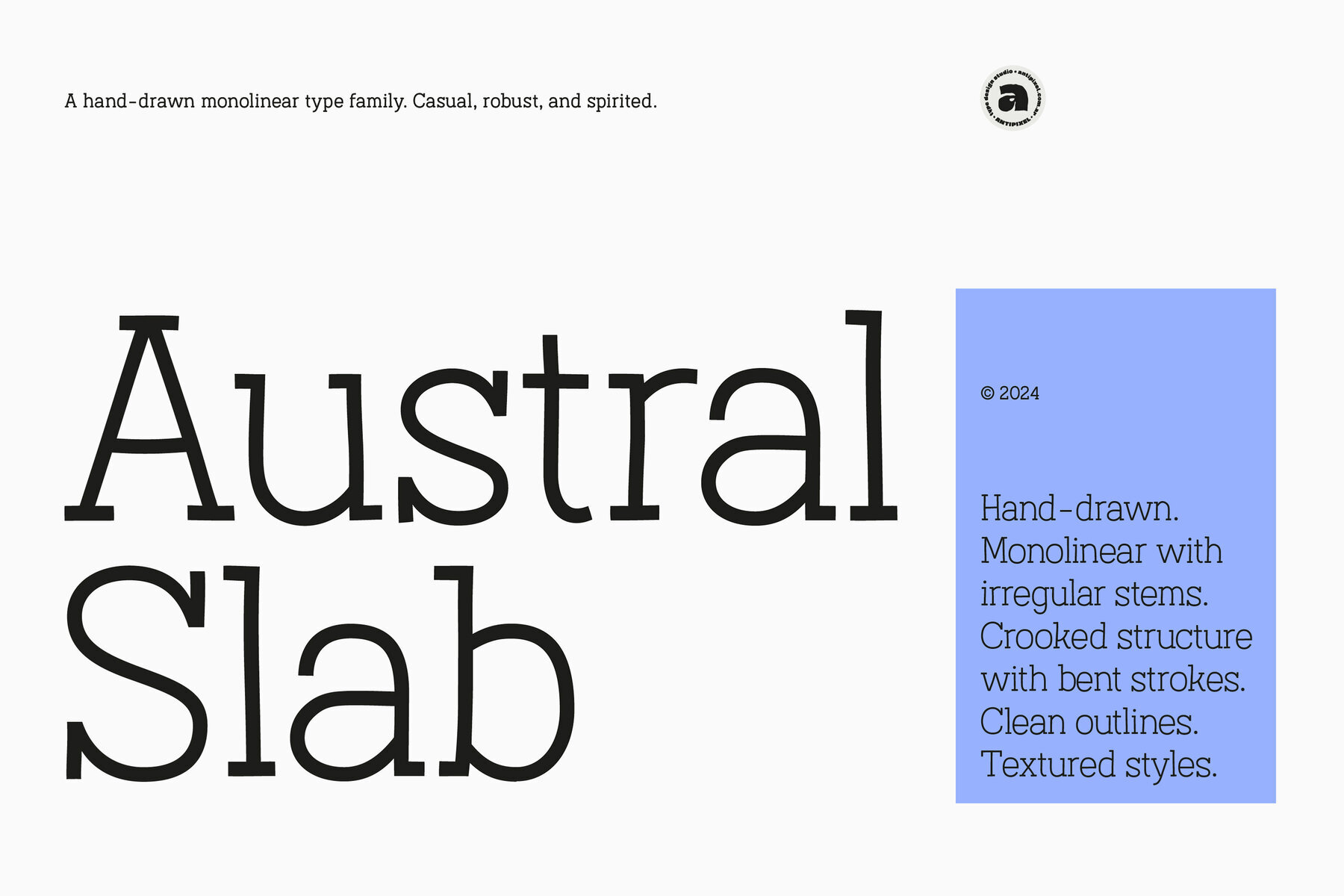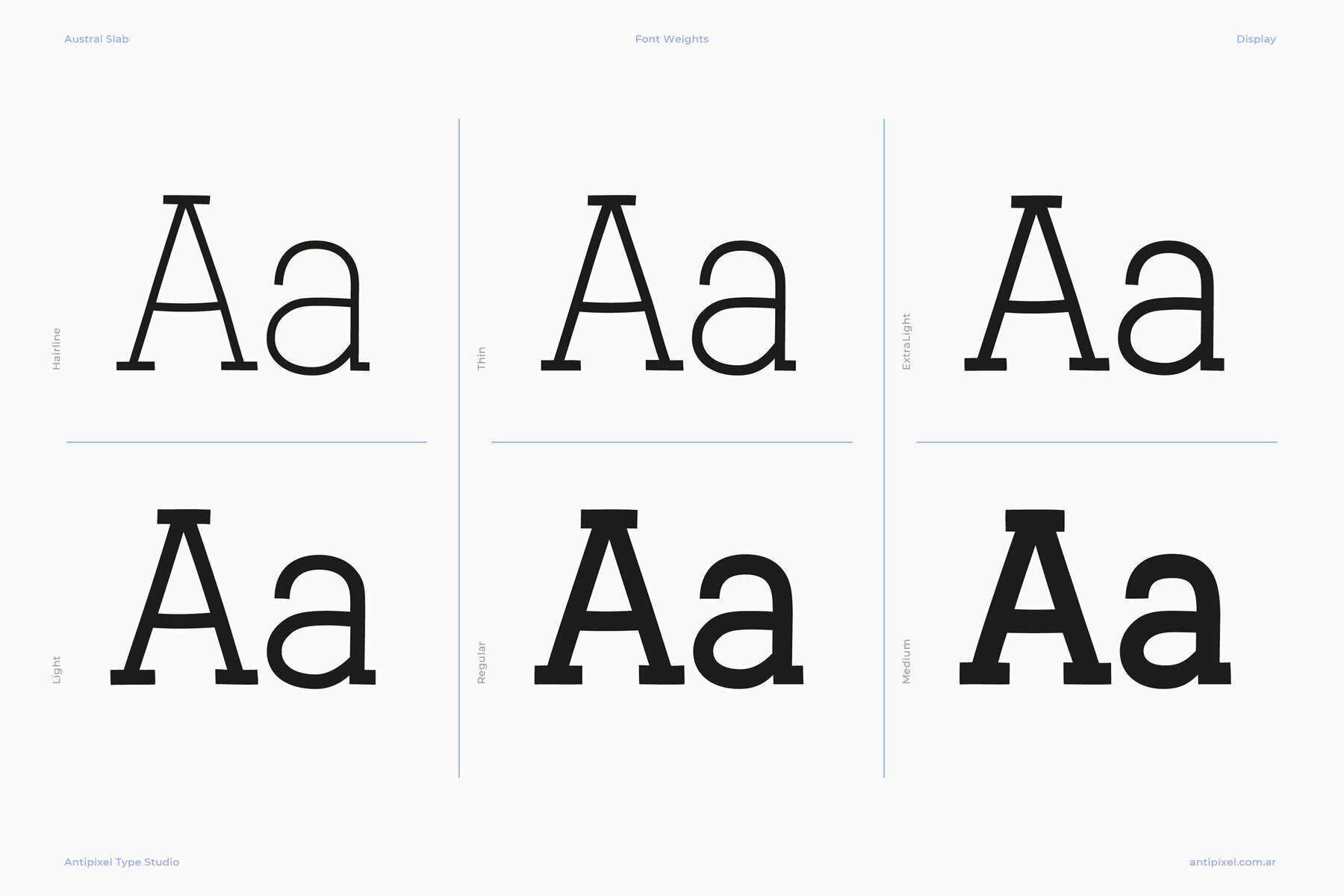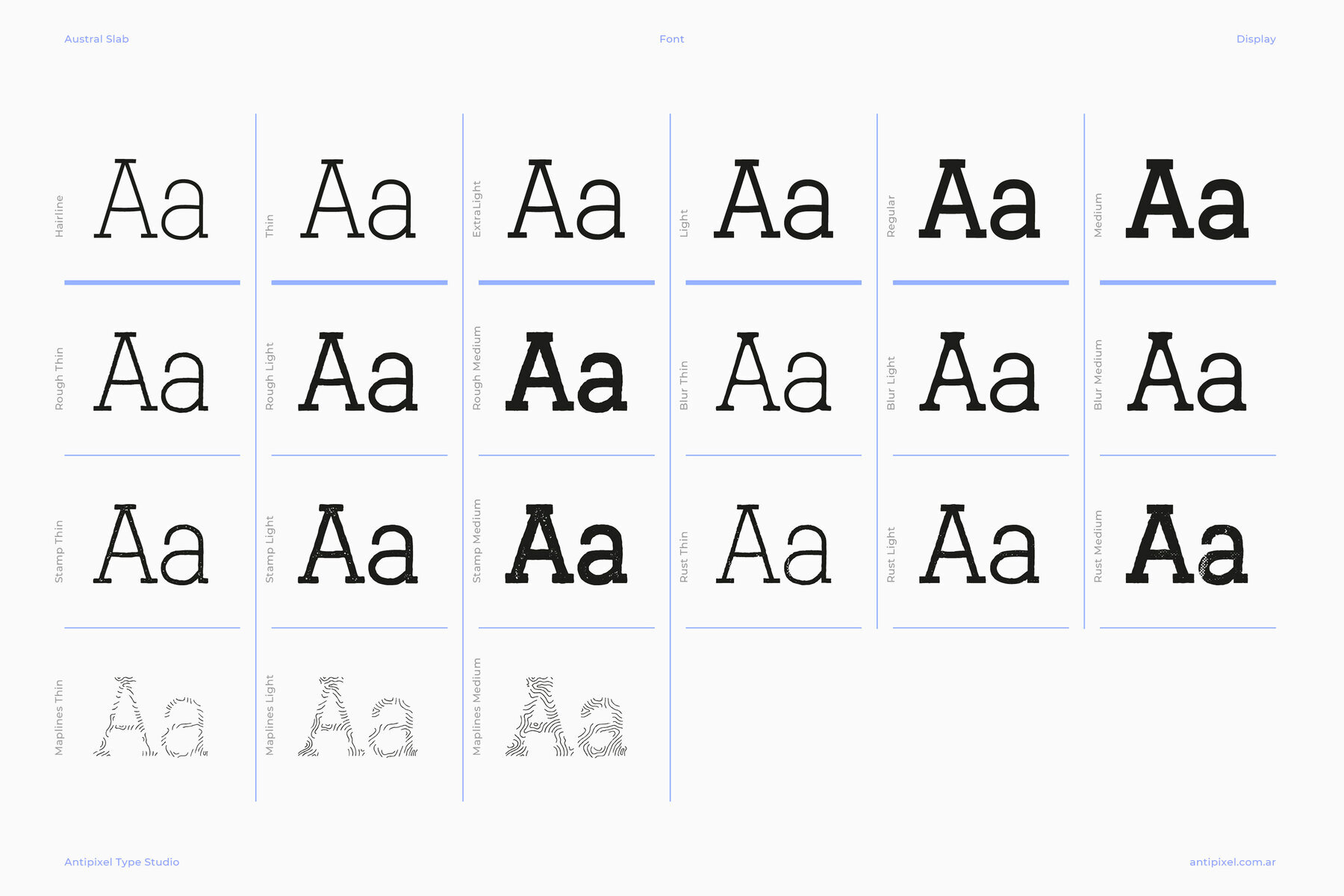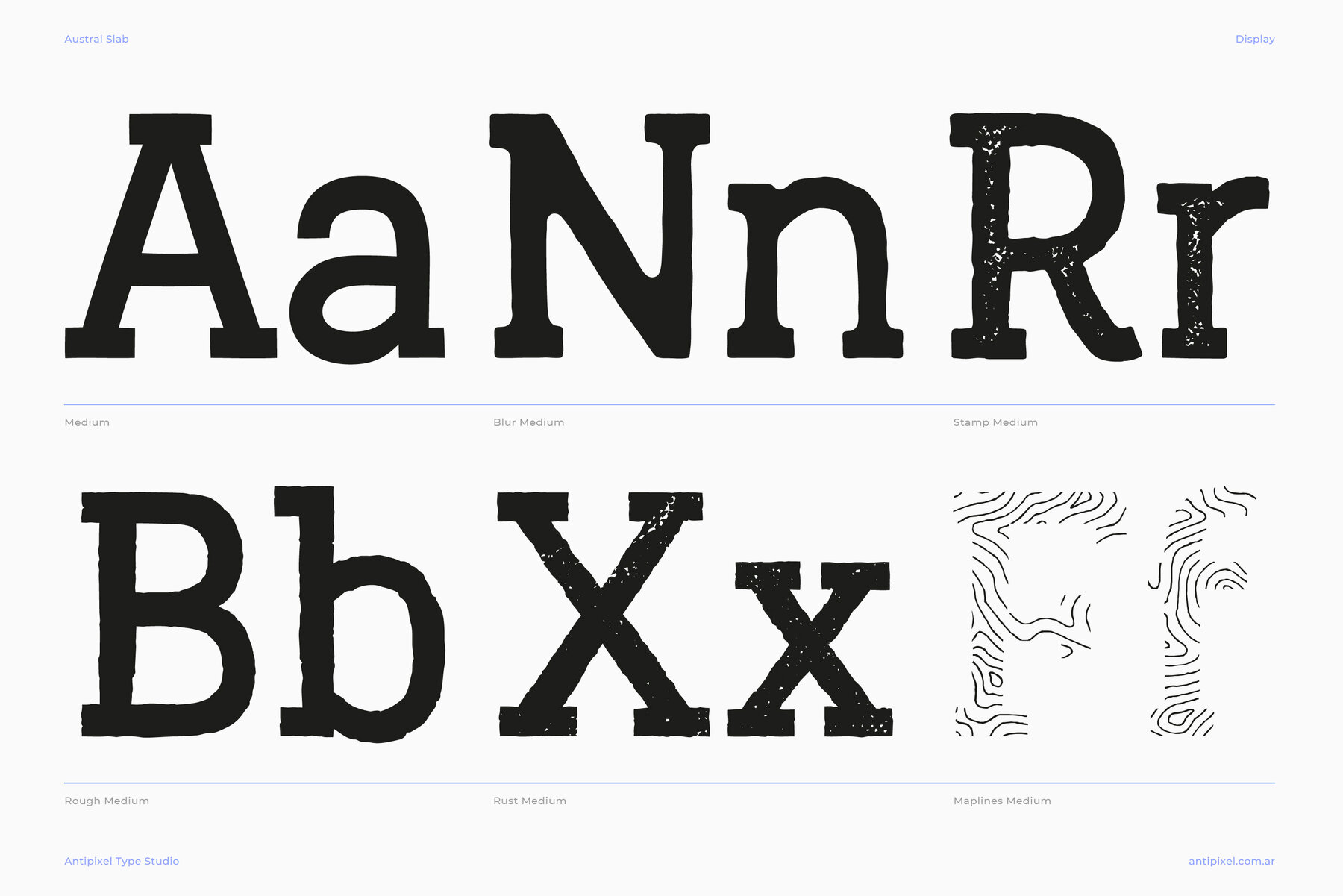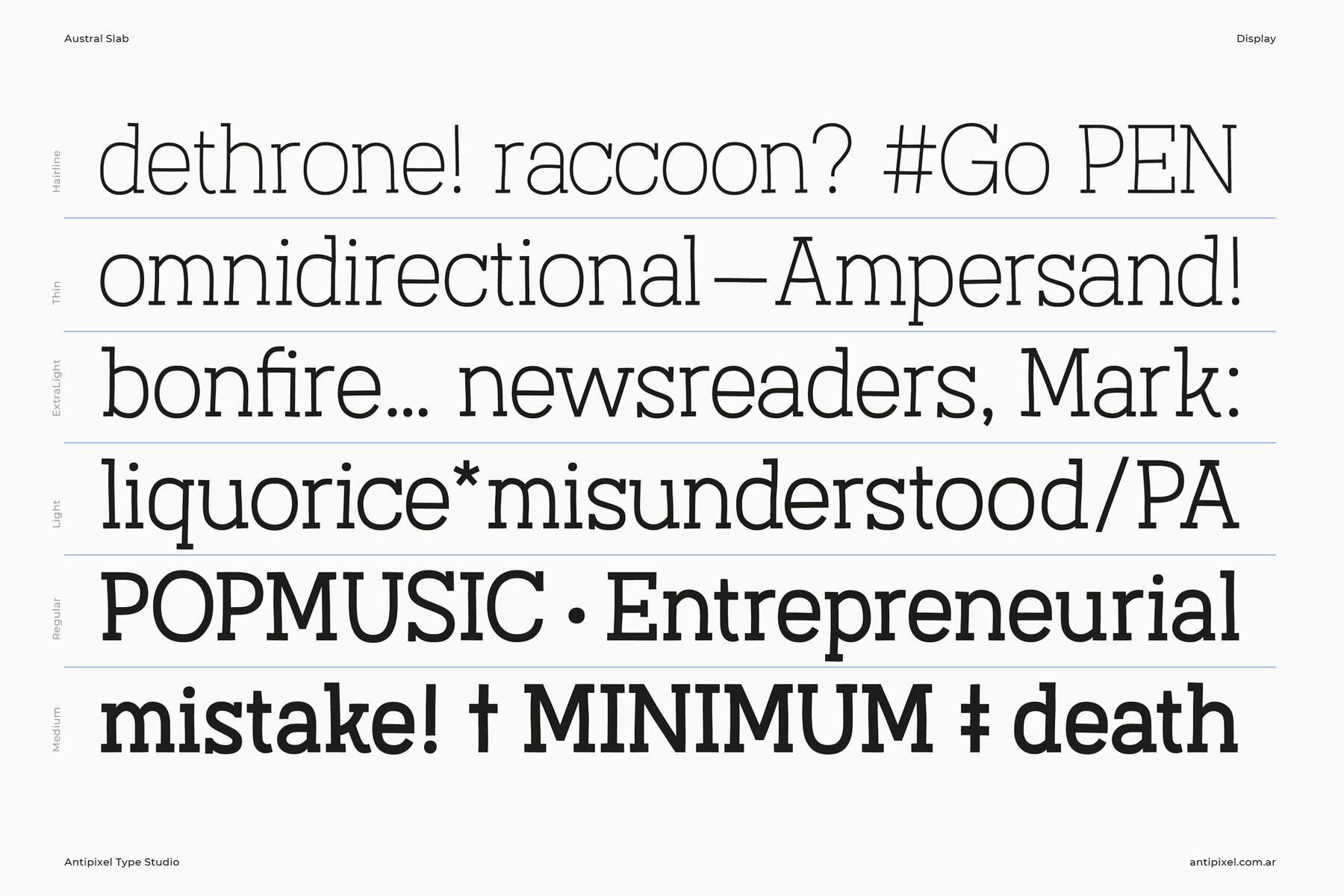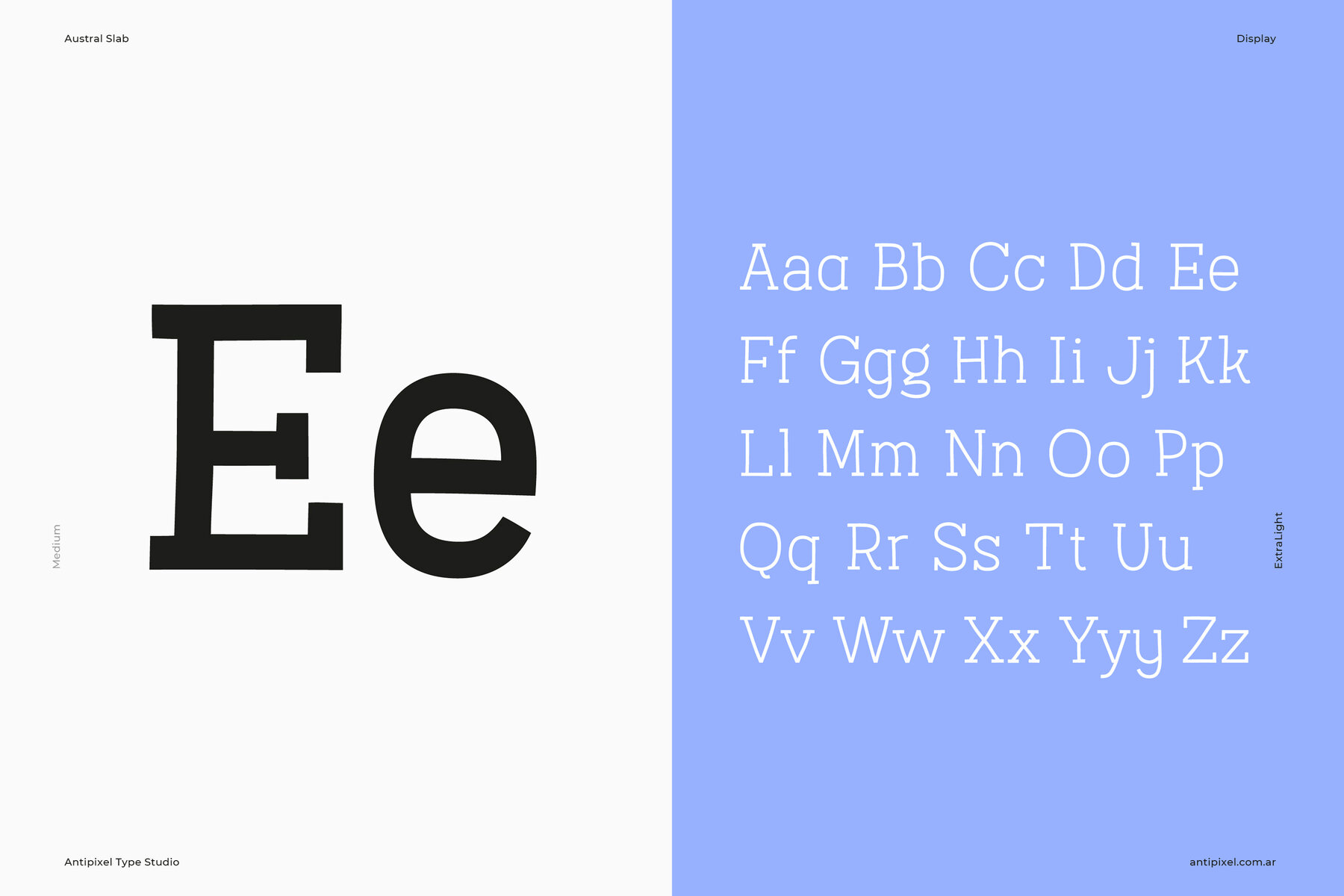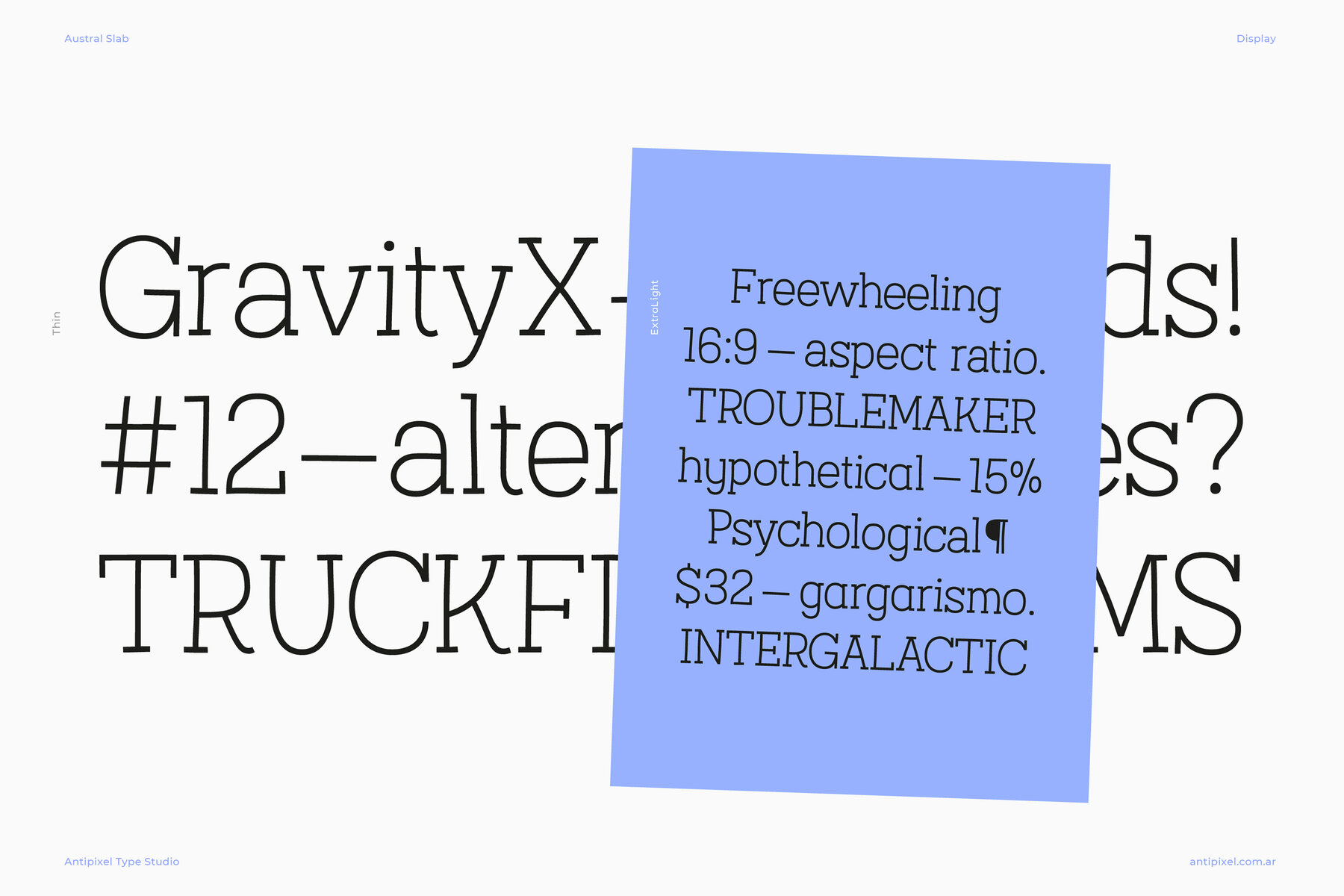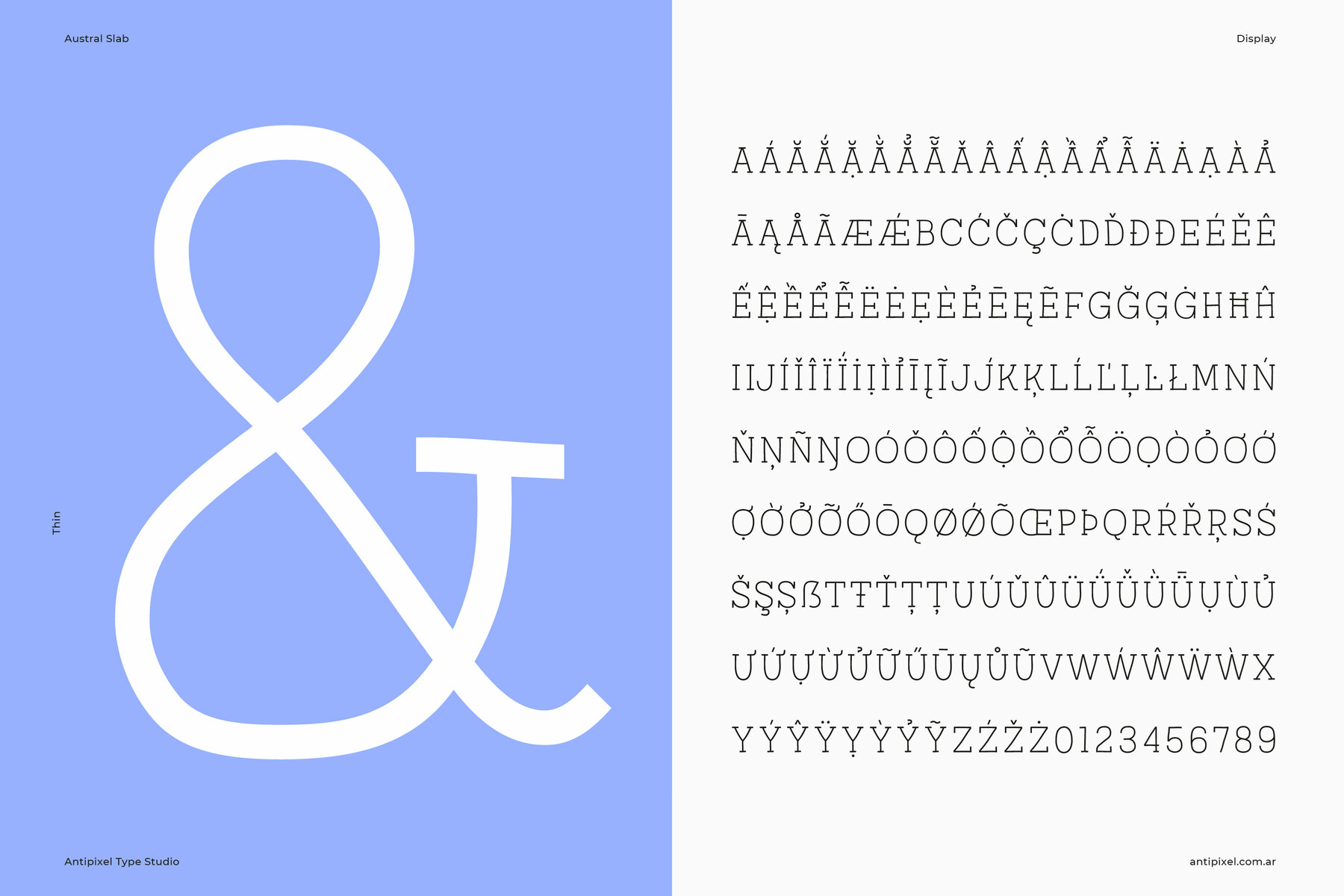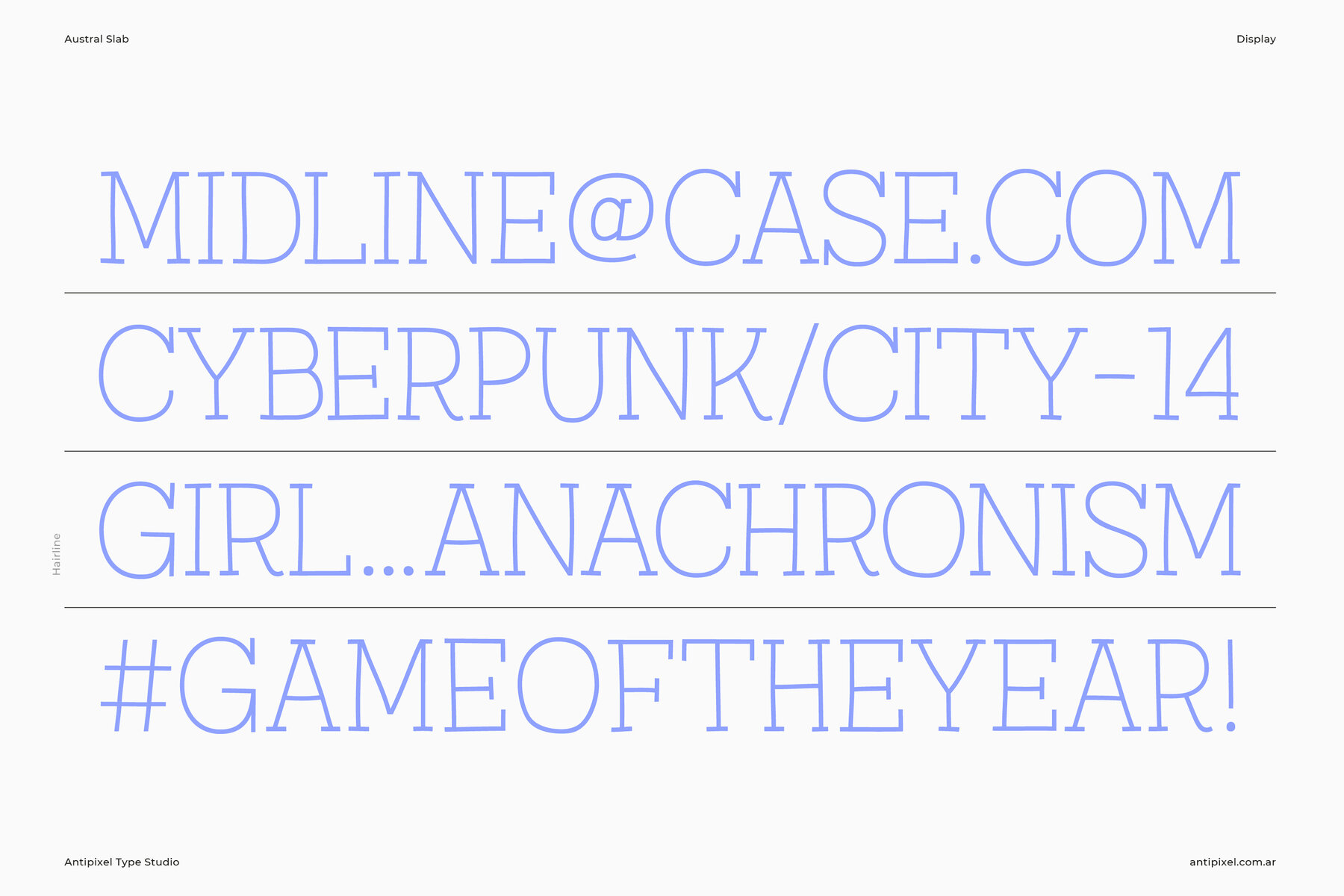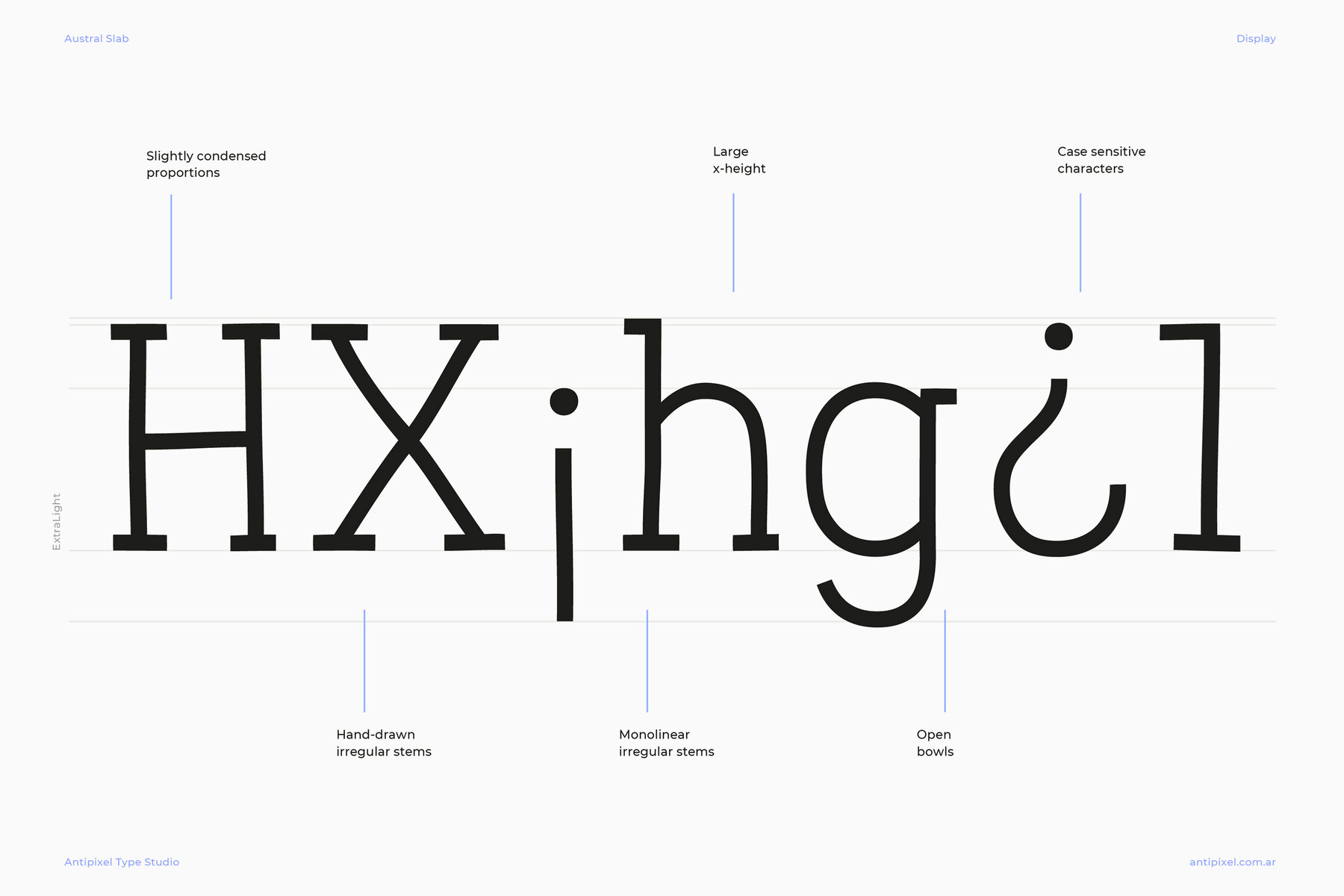
Austral Slab Font
Austral Slab is a hand-drawn layered type family. It is casual, robust, and spirited. It is monolinear in spirit, despite having irregular stems that give the fonts an eroded effect (particularly exaggerated in the Medium styles). It was originally released in 2016, and in 2024 updated with version 2.000 that includes a new weight distribution and clean no-textured fonts, major updates on glyph support, OpenType features, corrections on the design of specific characters, and more.
The clean fonts come in six weights: Hairline, Thin, ExtraLight, Light, Regular and Medium. Textured styles come in three weights, Thin, Light, and Medium, which all share the same crooked structure with bent strokes and irregular outlines.
The textures available are Blur, Rough, Rust, and Stamp, and the layered styles are Maplines and Spots. 'Blur' is a softened style with round and heavy swelling at intersections. 'Rough' has solid irregular contours. 'Rust' has a deteriorated texture over the glyphs. 'Stamp' has the appearance of a print that didn't get enough ink. 'Maplines' is uniquely filled with topographic map-like lines.
Austral Slab has three sets of alphabets that slightly differ. These sequentially alternate to avoid repeating the same textured letterforms, having a more realistic irregular result. The Contextual Alternates feature is available in all the styles of this type family.
Some Austral Slab's features are Ligatures, Discretionary Ligatures, Stylistic Alternates, numerators, fractions, arrows, and a glyph coverage that ensures extended language support.
(1) New weight distribution and clean no-textured fonts: The new clean fonts come in six weights: Hairline, Thin, ExtraLight, Light, Regular and Medium.
(2) New weight distribution: the former Regular style is now called Medium.
(3) The textures available are Rough, Blur, Stamp, Rust and Maplines: texture Spots is no longer available.
(4) Major update on glyph support: the total glyph count was reduced to optimize the fonts, and new glyphs were added to cover a larger language support.
(5) OpenType features update.
(6) Redesign of the design of specific characters.
(7) New arrow design on Medium styles (former Regular styles).
(8) Kerning update.